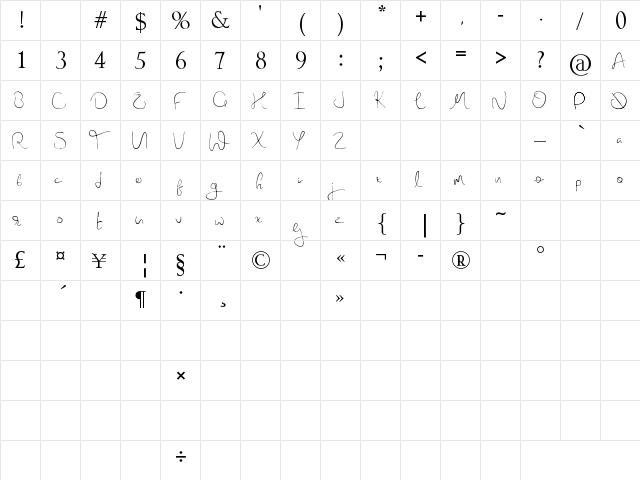
Nova Hearts Regular
| Designer | Zaffar Sabbir |
Design Context for Nova Hearts Typeface
Nova Hearts is a composed and adaptable typeface that performs quietly and consistently across a wide range of design contexts.